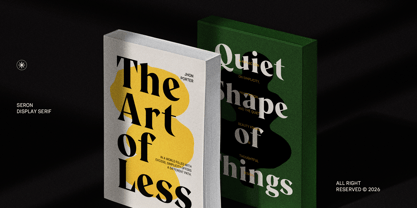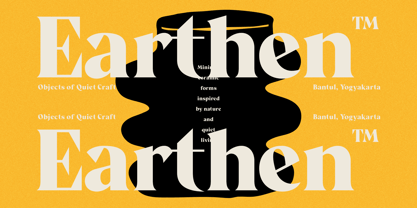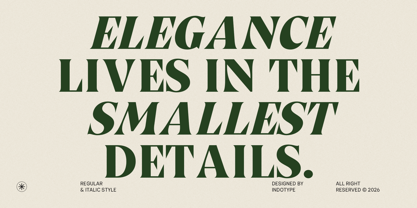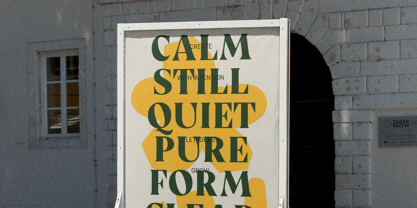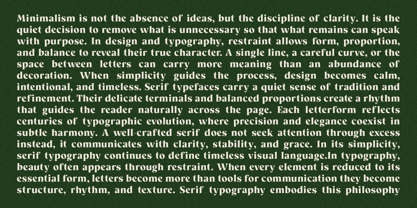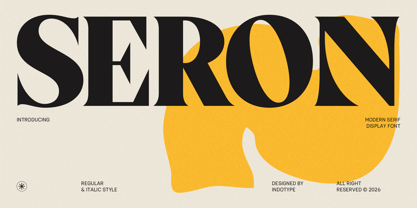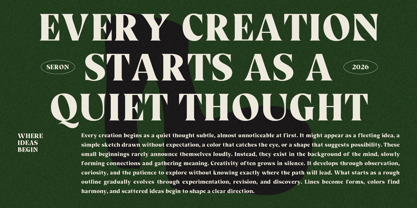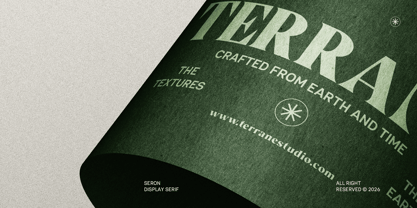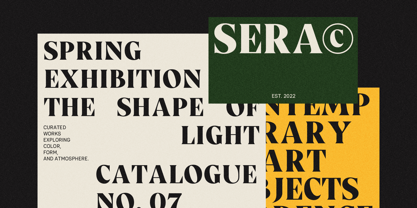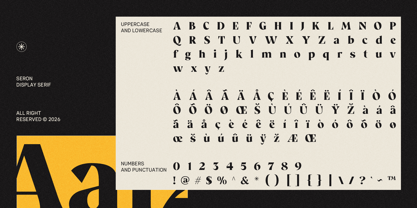
IT Seron
by Indotype
The IT Seron Font Family was designed by Dede Kurniawan and published by Indotype. IT Seron contains 2 styles and family package options. More about this family
Seron is a bold display serif typeface that commands the page with the confidence of a landmark. Designed by Indotype, Seron bridges the classic authority of high-contrast serif typography with a distinctly modern display sensibility — delivering letterforms so large, so dense, and so optically refined that they function as visual architecture rather than mere text. This is type designed not to be read in a hurry, but to be felt at a glance. Design Characteristics Seron's defining quality is its extreme stroke contrast — the hallmark of the Didone and Modern serif tradition, pushed to its expressive limits. Thick vertical stems swell to near-maximum weight, while the horizontal hairline strokes thin to near-invisibility, creating a tension between mass and delicacy that is visually electric at display scale. The result is a typeface that carries the structural authority of a classical typeface and the compositional drama of contemporary editorial design. The letterforms are constructed with razor-sharp precision: flat, unbracketed serifs sit at perfect right angles to the stems, reinforcing the geometric discipline at the heart of the design. Perfectly vertical stress ensures mathematical consistency across every glyph, while generous apertures and open counters maintain clarity even when letters are set tightly and at extreme sizes. The overall proportions are wide and confident — Seron occupies space deliberately, without apology. The Italic style introduces a subtle forward lean and optical elegance that softens the upright weight's structural authority into something more expressive and editorial. Together, the Regular and Italic styles give designers a versatile pairing for typographic hierarchy within a single typeface family. Showcase & Aesthetic Context The design showcase — bold all-caps letters bleeding off the edges of the composition, overlaid against a graphic amber-yellow organic shape — captures Seron's essential character perfectly: serious, structural, and striking, yet alive with contemporary graphic energy. Seron is equally at home in the restrained grid of a luxury brand system and the expressive freedom of a culture-forward editorial layout. Ideal Use Cases Seron is built for the moments where typography must do the heaviest lifting. It excels in: luxury and premium brand logotypes and wordmarks, high-fashion magazine and editorial headlines, book cover and publishing design, corporate brand identity for architecture, finance, and consulting firms, premium product packaging, annual report covers and investor communications, museum and gallery visual identities, digital brand experiences for hospitality and lifestyle sectors, advertising campaign headlines, and poster design requiring maximum typographic impact.